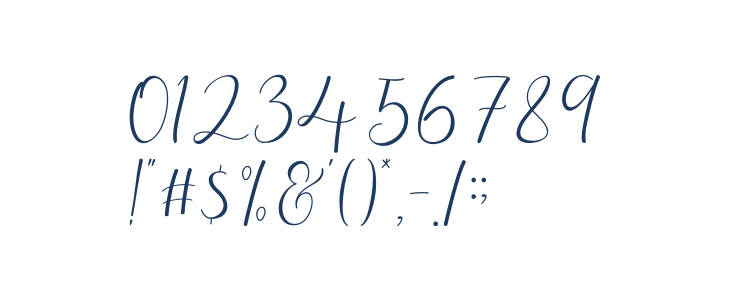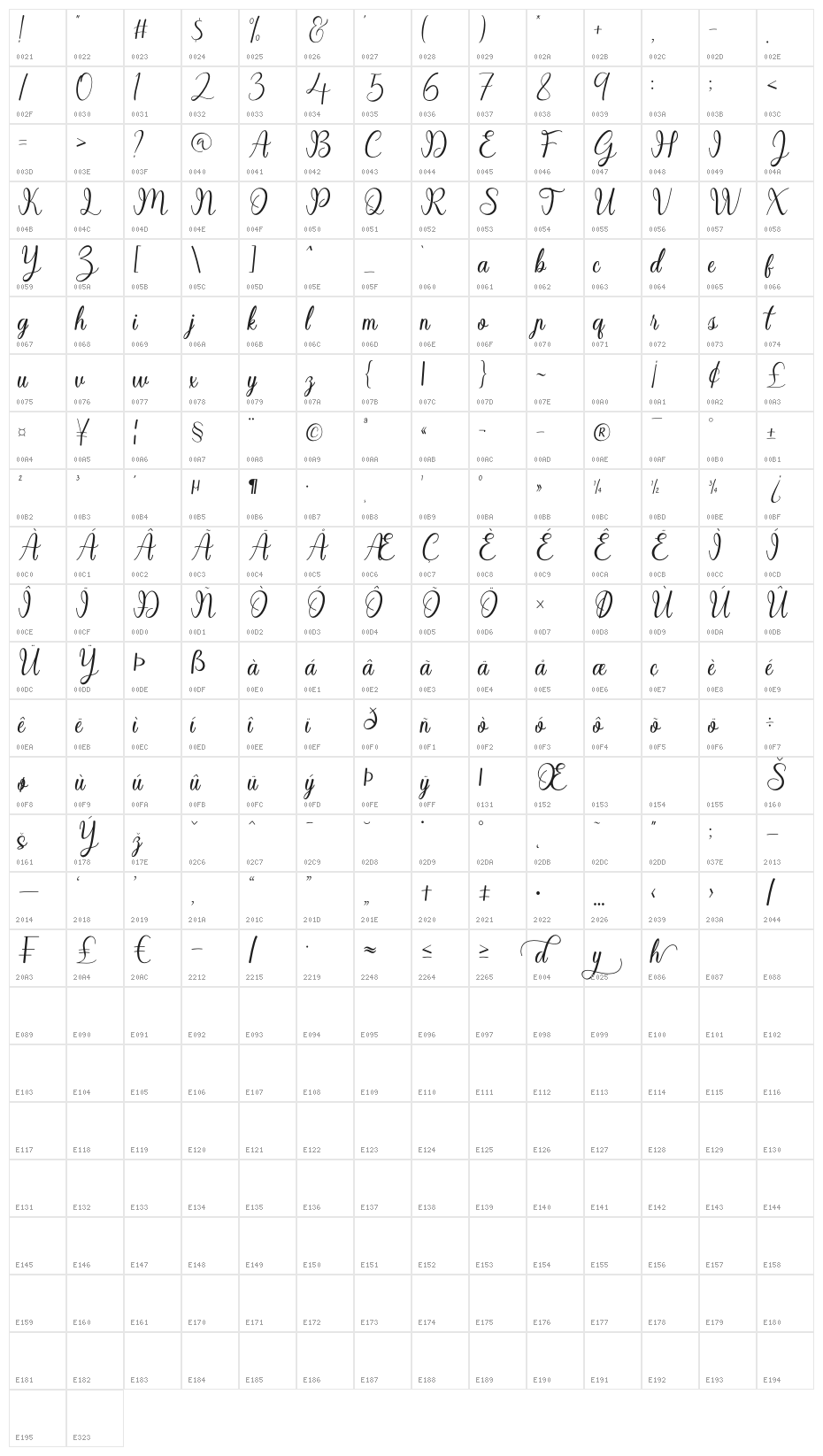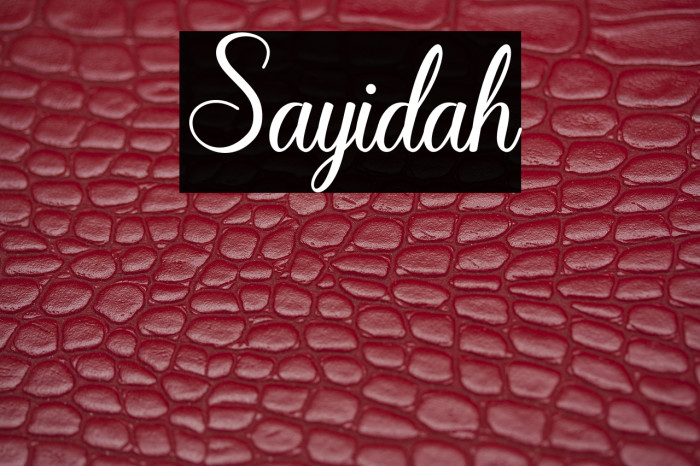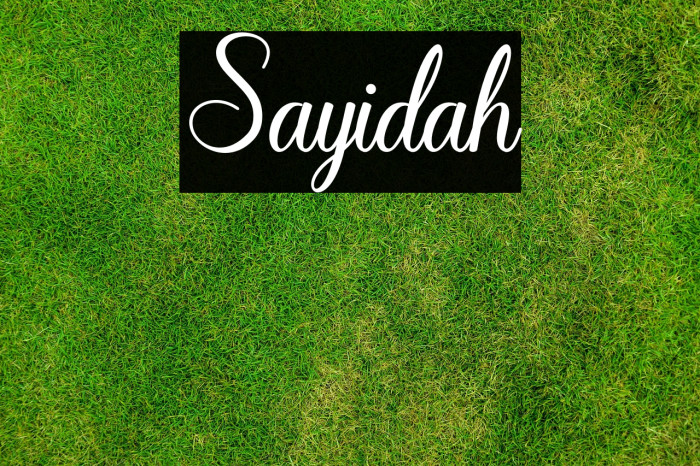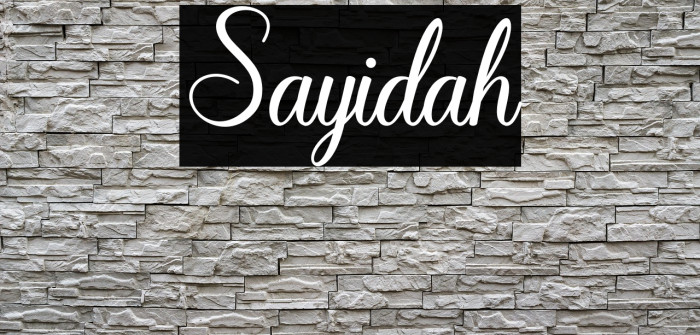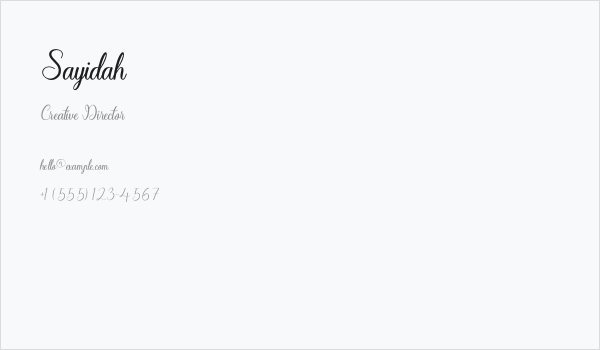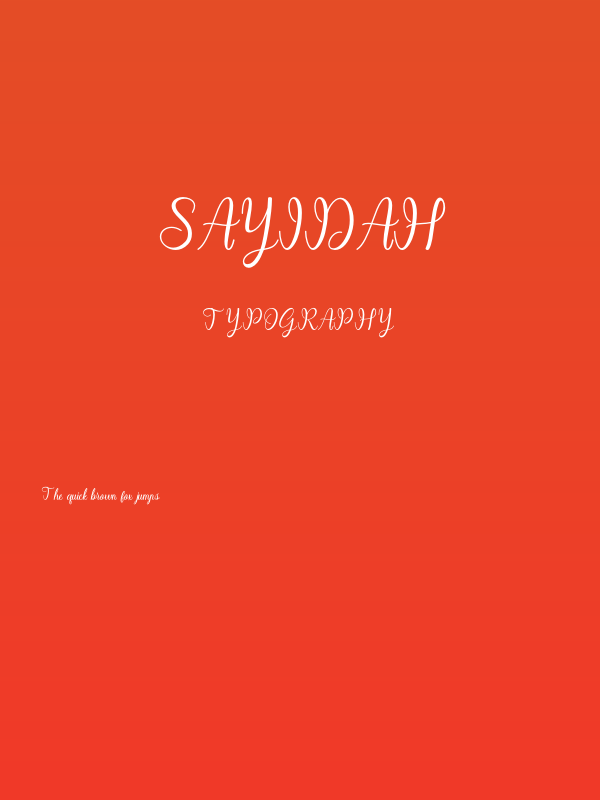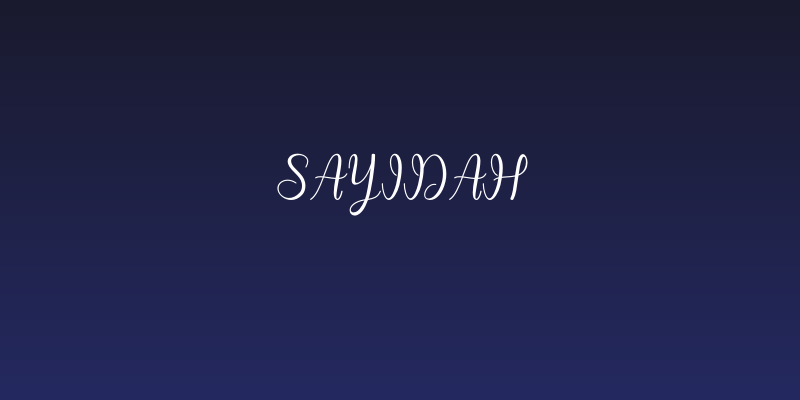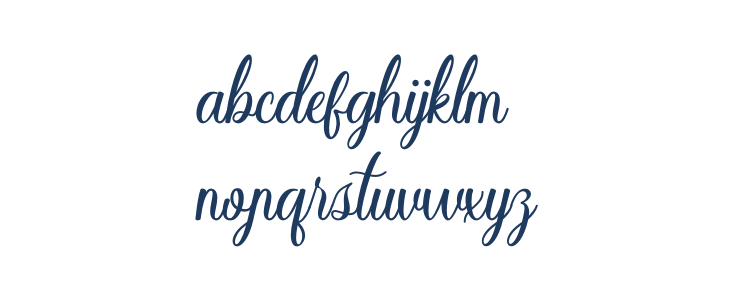
Sayidah Font
Sayidah Description
This elegant script font features a flowing, cursive style with smooth, rounded edges and a consistent stroke width. The uppercase letters are slightly more elaborate, with graceful loops and swirls, while the lowercase letters maintain a more straightforward, yet still stylish, appearance. The numerals and special characters complement the overall aesthetic, maintaining the same fluidity and elegance. This font exudes a sense of sophistication and charm, making it ideal for projects that require a touch of class and refinement.
| Use Case | Invitations, Branding, Greeting Cards |
| Proposed Projects | Ideal for wedding invitations, elegant branding, greeting cards, and upscale packaging. |